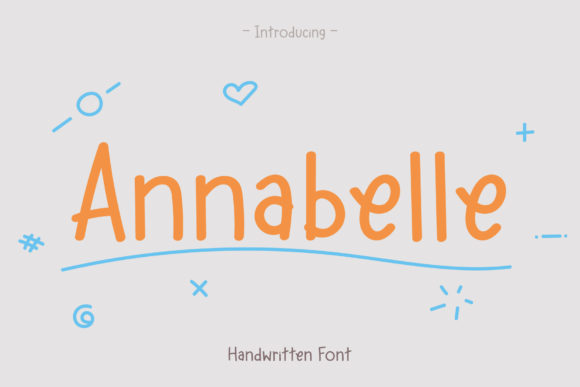
The Annabelle Font: A Sweet and Versatile Handwritten Delight
I’ll never forget the design project that led me to discover the Annabelle font. I was working on a branding project for a new coffee shop, and I was struggling to find the perfect font to capture their friendly, down-to-earth vibe. That’s when I stumbled upon Annabelle, and it quickly became my go-to choice. In this article, I’ll share my love for this beautiful font, its features, and how to make the most of it in your designs.
An Honest Review of Annabelle Font
What I Love About Annabelle ✨
- ✅ Its casual charm makes it perfect for a wide range of design projects, from branding to invitations and social media graphics.
- ✅ The font’s handcrafted feel gives it a unique, personal touch that’s hard to find in digital fonts.
- ✅ Annabelle is incredibly versatile and works beautifully on both busy backgrounds and as a standalone headline.
- ✅ The font comes with a range of OpenType features, including glyphs and stylistic alternates, which allow for endless creative possibilities.
While Annabelle is an amazing font, there are a few things to keep in mind:
- ⚠️ As a handwritten font, Annabelle may not be the best choice for very formal or corporate designs.
- ⚠️ Some of the more intricate glyphs and alternates may not display correctly on all devices or platforms.
The Story Behind Annabelle Font
The Annabelle font was designed with the intention of creating a beautiful, versatile handwritten font that would be perfect for a wide range of design projects. The designer aimed to capture the charm and personality of handwriting, while still maintaining a level of sophistication and elegance. The result is a font that’s both down-to-earth and refined, making it perfect for designs that require a personal touch.